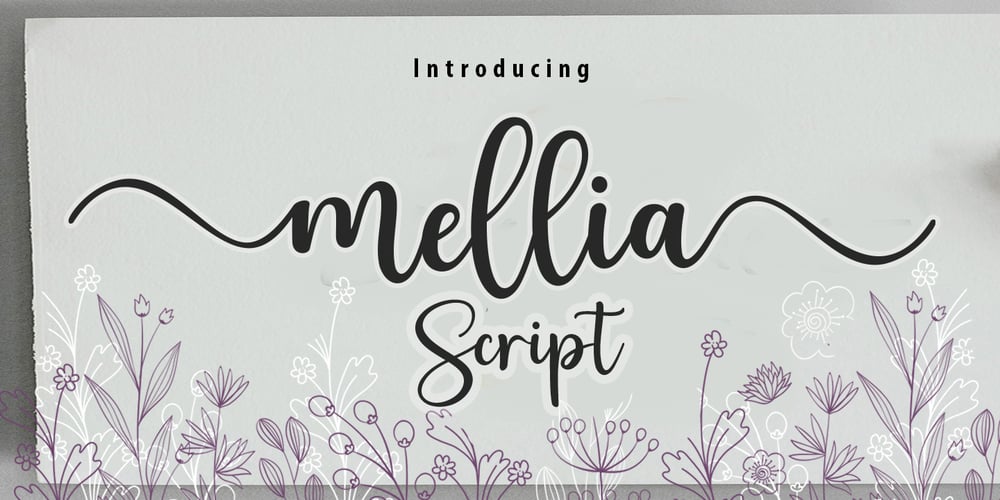
Mellia Script Font Family was designed by Nasrullah and published by Sulthan Studio. Mellia Script contains 1 styles and family package options. Mellia Script is an elegant script font with a contemporary feel and perfect form, inspired by beautiful handwritten calligraphy. Neither too thin nor too bold, this font is designed to enhance the beauty of your projects. This font is PUA encoded which means you can access all the glyphs and sweeps easily!Fonts that are equipped with uppercase and lowercase letters, numbers, punctuation, support for languages, swashes and ligatures.